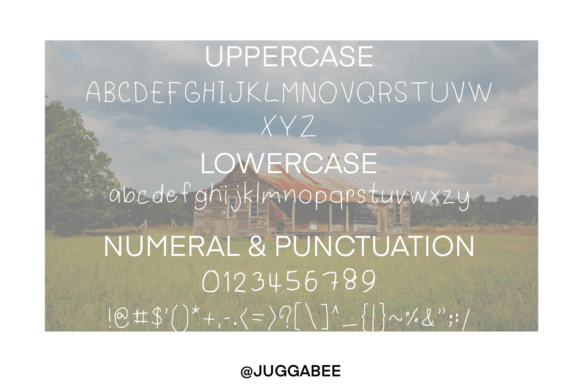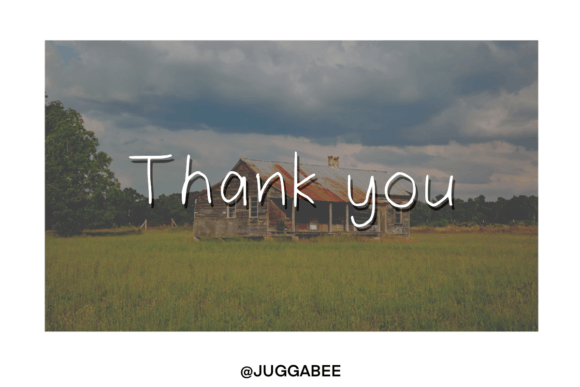
Hello Farmhouse Font: Add a Personal Touch to Your Designs
Are you looking for a unique and quirky font to elevate your designs? Look no further than Hello Farmhouse, a charming handwritten typeface that’s perfect for adding a personal touch to your projects. In this article, we’ll dive into the world of Hello Farmhouse and explore its features, uses, and benefits for designers and crafters.
What is Hello Farmhouse Font?
Hello Farmhouse is a delightful handwritten font that’s designed to bring a touch of whimsy and personality to your designs. Its quirky and charming style makes it perfect for a wide range of projects, from logos and branding to invitations, stationery, and social media posts.
This beautiful font is carefully crafted to resemble handwritten text, with subtle imperfections and variations that give it a warm and organic feel. Whether you’re designing for digital or print, Hello Farmhouse is sure to add a unique and eye-catching element to your work.
Features of Hello Farmhouse Font
Hello Farmhouse font comes with a range of features that make it a versatile and practical choice for designers. Some of its key features include:
- Quirky and charming style: Hello Farmhouse has a unique and playful style that’s perfect for adding a personal touch to your designs.
- Handwritten appearance: This font is designed to resemble handwritten text, with subtle imperfections and variations that give it a warm and organic feel.
- Multilingual support: Hello Farmhouse supports multiple languages, making it a great choice for designers working on international projects.
- Easy to read: Despite its quirky style, Hello Farmhouse is surprisingly easy to read, making it perfect for use in body text and captions.
Uses of Hello Farmhouse Font
Hello Farmhouse is a versatile font that can be used for a wide range of projects, including:
- Logos and branding: Add a personal touch to your logo and branding with Hello Farmhouse’s unique and quirky style.
- Invitations and stationery: Create beautiful and eye-catching invitations, greeting cards, and stationery with Hello Farmhouse.
- Wedding designs: Hello Farmhouse is a popular choice for wedding designs, including wedding invitations, programs, and signage.
- Social media posts: Add a touch of personality to your social media posts with Hello Farmhouse’s charming and whimsical style.
- Crafting and DIY projects: Hello Farmhouse is perfect for crafters and DIY enthusiasts, and can be used for a range of projects, from scrapbooking to crafting.
Benefits of Using Hello Farmhouse Font
So why choose Hello Farmhouse for your designs? Here are just a few benefits of using this charming font:
- Adds a personal touch: Hello Farmhouse’s quirky and charming style adds a personal touch to your designs, making them stand out from the crowd.
- Versatile: This font can be used for a wide range of projects, from logos and branding to invitations and social media posts.
- High-quality design: This font is carefully crafted to provide a high-quality design that’s both beautiful and functional.
Tips for Using Hello Farmhouse Font
Here are a few tips for getting the most out of Hello Farmhouse:
- Experiment with different sizes and colors: Hello Farmhouse looks great in a range of sizes and colors, so don’t be afraid to experiment and find the perfect combination for your design.
- Pair with other fonts: Hello Farmhouse pairs well with other fonts, so try combining it with a sans-serif font for a bold and eye-catching look.
- Use for headlines and titles: Hello Farmhouse is perfect for use in headlines and titles, where its quirky style can really shine.
| Author | Juggabee |
Hello Farmhouse is a charming and versatile font that’s perfect for designers and crafters looking to add a personal touch to their projects. With its quirky and handwritten style, this font is sure to elevate your designs and make them stand out from the crowd. Whether you’re designing for digital or print, Hello Farmhouse is a great choice for a wide range of projects, from logos and branding to invitations and social media posts.